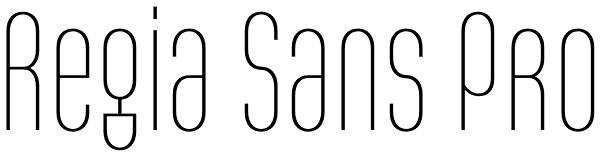
Regia Sans Pro
Regia Sans is a typeface that was designed in 2008 in Concepción, Chile, and was first released for sale by Latinotype. It is a very thin and condensed font with a modular design, well-suited for short texts, logos, magazines, posters, etc. This new...